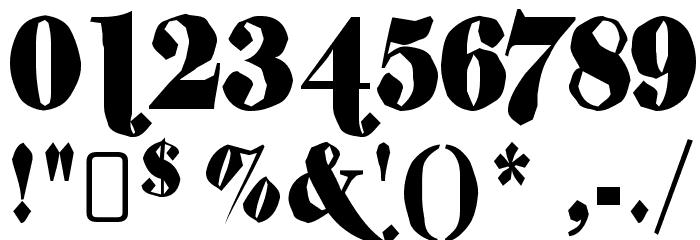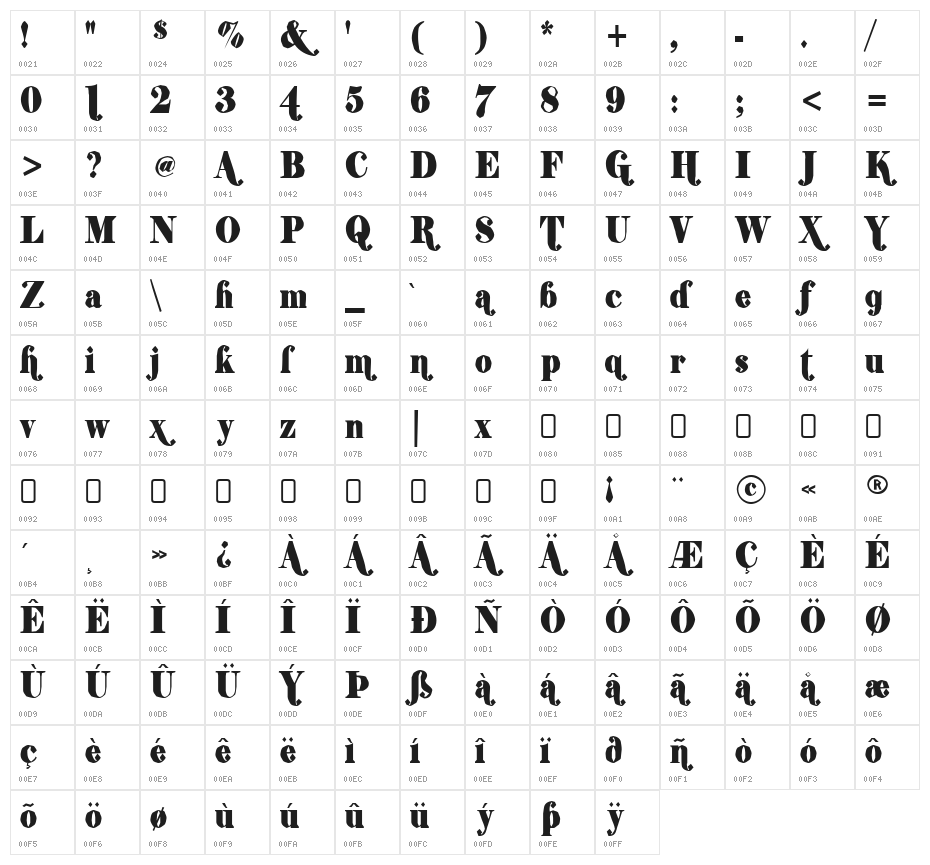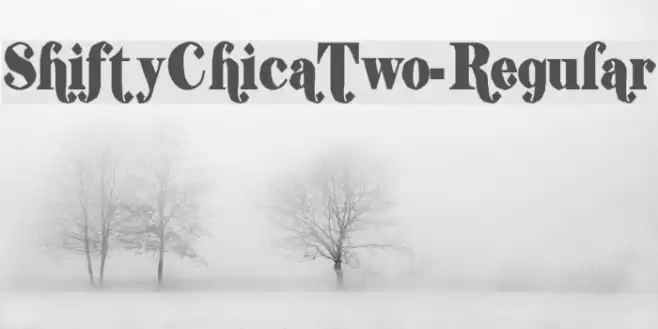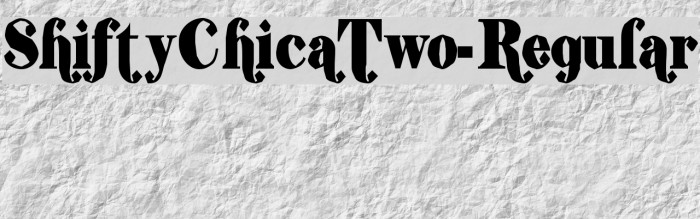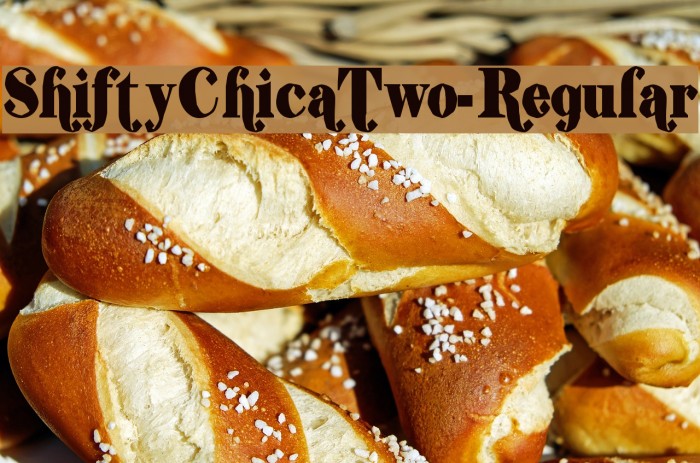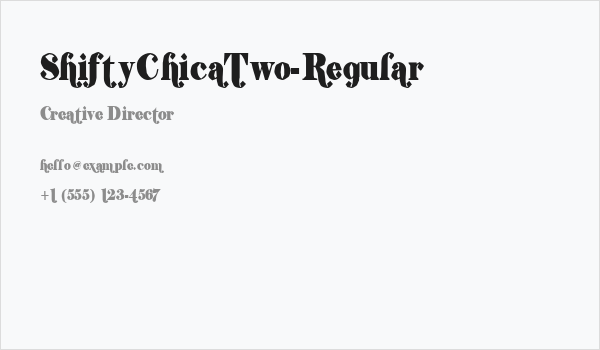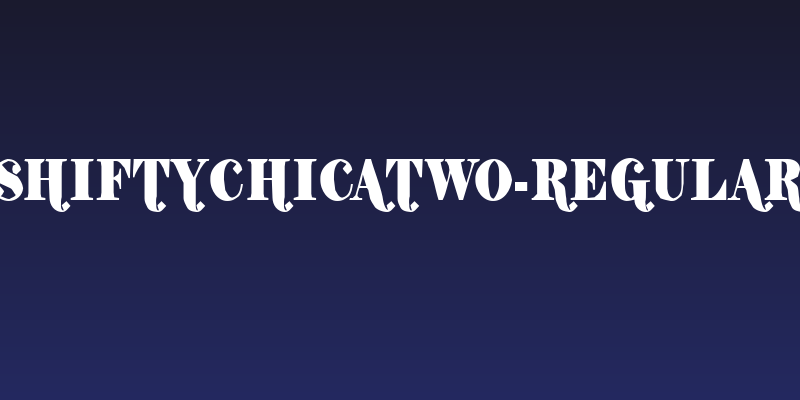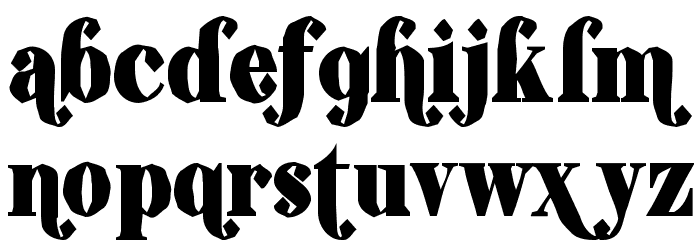
ShiftyChicaTwo-Regular Font
ShiftyChicaTwo-Regular Description
This font features a bold and dramatic style with a strong presence. The characters are designed with sharp, angular edges and a distinct blackletter influence, giving it a gothic and medieval feel. The uppercase letters are particularly striking, with exaggerated serifs and a heavy weight that commands attention. The lowercase letters maintain the same boldness, with unique curves and angles that add to the overall aesthetic. Numbers and special characters are consistent with the font's bold and decorative style, making it suitable for impactful designs.
| Proposed Projects | Ideal for projects requiring a gothic or medieval theme, such as book covers, posters, or branding for alternative music bands. |